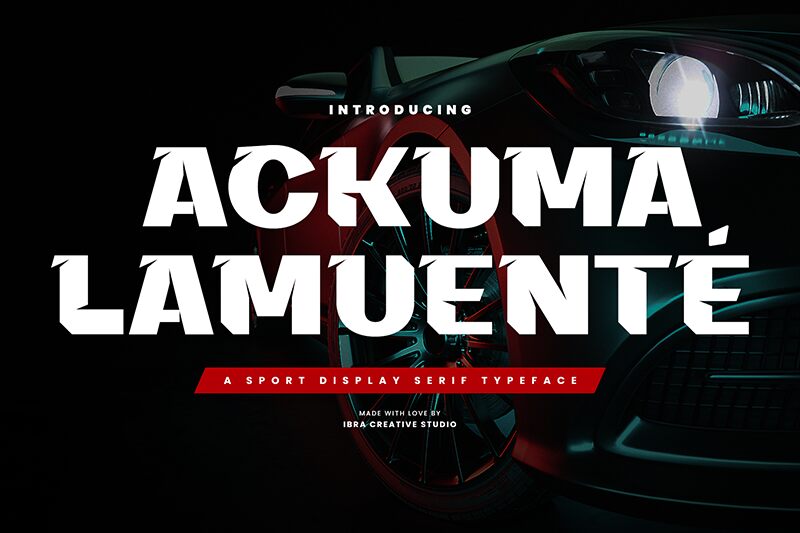
Ackuma lamuente font by Ibra Creative Studio is a bold display font with geometric influences. It holds a modern aesthetic style of its own offering a strong visual impact. Most of the characters are wide in shape combined similarly in height and width for a neat look. Ideal for projects filled with as much text as visuals.
Versatile applications for this free display font start with logo design, posters, and signage then it can move toward packaging, websites’ headlines, advertisements designs, social media posts, banners along with brochures and magazines’ cover pages; each getting particular attention to achieve success.